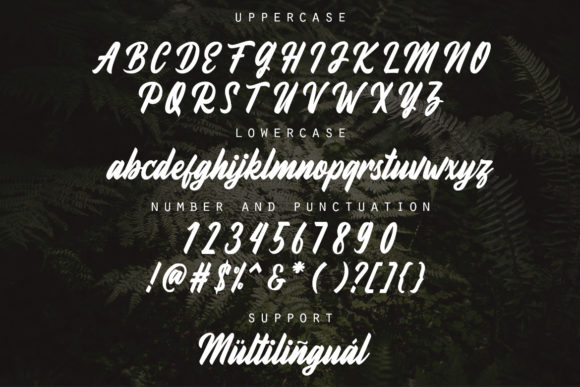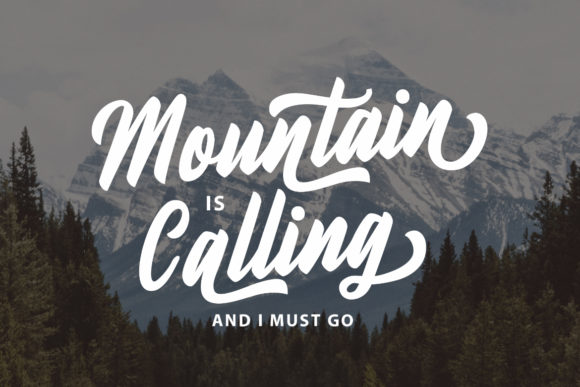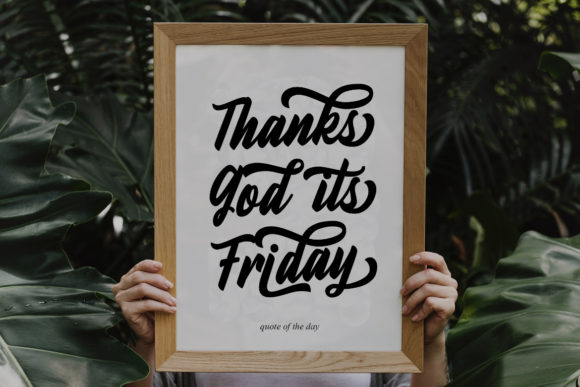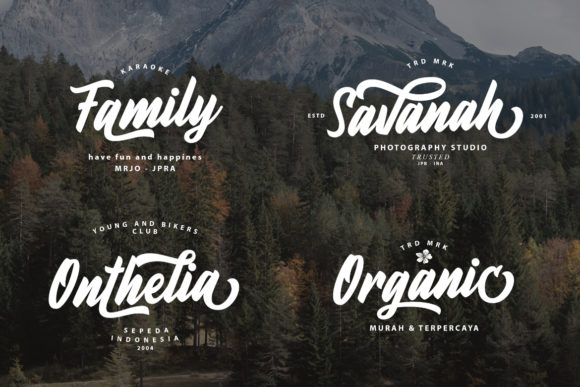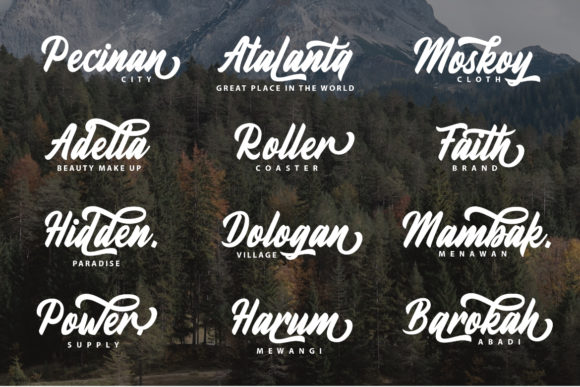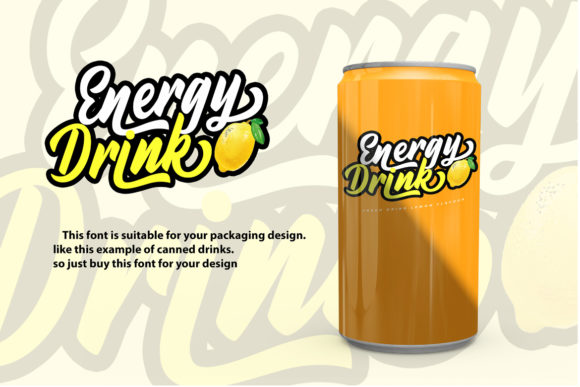
Introducing Fineberg Font: The Ultimate Retro-Styled Handwritten Font
Are you looking for a font that can add a touch of nostalgia and style to your designs? Look no further than Fineberg Font, a retro-styled, assertive handwritten font that’s perfect for headlines and logotype projects. In this article, we’ll dive into the features and benefits of Fineberg Font, and explore how it can elevate your designs to the next level.
What is Fineberg Font?
Fineberg Font is a carefully crafted, handwritten font that’s designed to give your designs a stylish and confident look. With its retro vibe and assertive personality, Fineberg Font is perfect for designers and crafters who want to add a touch of nostalgia to their work. Whether you’re creating a logo, headline, or social media graphic, Fineberg Font is sure to make a statement.
Key Features of Fineberg Font
So, what makes Fineberg Font so special? Here are just a few of its key features:
- Retro-Styled: Fineberg Font has a distinctly retro feel that’s reminiscent of classic designs from the past. Its unique blend of vintage and modern elements makes it perfect for designers who want to add a touch of nostalgia to their work.
- Assertive and Confident: Fineberg Font is a bold and assertive font that’s designed to make a statement. Its confident personality is perfect for headlines and logotype projects that need to grab attention.
- Handwritten: Fineberg Font is a handwritten font that’s been carefully crafted to look like it was written by hand. Its unique, organic feel makes it perfect for designers who want to add a personal touch to their work.
- Dynamic: Fineberg Font is a dynamic font that’s perfect for designers who want to add some energy to their work. Its bold lines and confident personality make it perfect for projects that need to stand out.
Benefits of Using Fineberg Font
So, why should you choose Fineberg Font for your next design project? Here are just a few of the benefits of using this amazing font:
- Adds Nostalgic Character: Fineberg Font has a unique, retro vibe that’s perfect for designers who want to add some nostalgic character to their work. Its vintage feel is sure to transport your audience back in time.
- Perfect for Headlines and Logotype Projects: Fineberg Font is specifically designed for headlines and logotype projects, making it perfect for designers who want to create bold and attention-grabbing titles.
- Easy to Read: Despite its bold and assertive personality, Fineberg Font is surprisingly easy to read. Its clear and confident lines make it perfect for designs that need to communicate a message quickly and effectively.
- Versatile: Fineberg Font is a versatile font that can be used in a wide range of design projects, from logos and headlines to social media graphics and more.
How to Use Fineberg Font in Your Designs
So, how can you use Fineberg Font in your designs? Here are a few ideas to get you started:
- Logos: Fineberg Font is perfect for logos that need to make a bold statement. Its confident personality and retro vibe make it perfect for brands that want to stand out.
- Headlines: Fineberg Font is specifically designed for headlines, making it perfect for designers who want to create bold and attention-grabbing titles.
- Social Media Graphics: Fineberg Font is perfect for social media graphics that need to stand out. Its bold lines and confident personality make it perfect for designs that need to grab attention.
- Posters and Flyers: Fineberg Font is perfect for posters and flyers that need to communicate a message quickly and effectively. Its clear and confident lines make it easy to read, even from a distance.
| Font Name | Fineberg Font |
| Author | Semauku |
In conclusion, Fineberg Font is a retro-styled, assertive handwritten font that’s perfect for designers and crafters who want to add a touch of nostalgia and style to their work. With its bold lines, confident personality, and dynamic feel, Fineberg Font is sure to make a statement in any design project. Whether you’re creating a logo, headline, or social media graphic, Fineberg Font is the perfect choice.